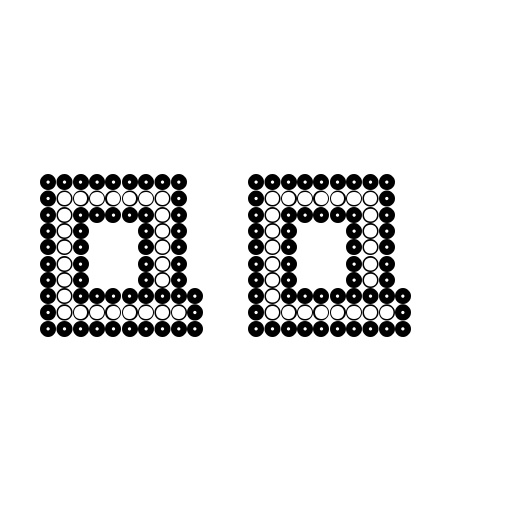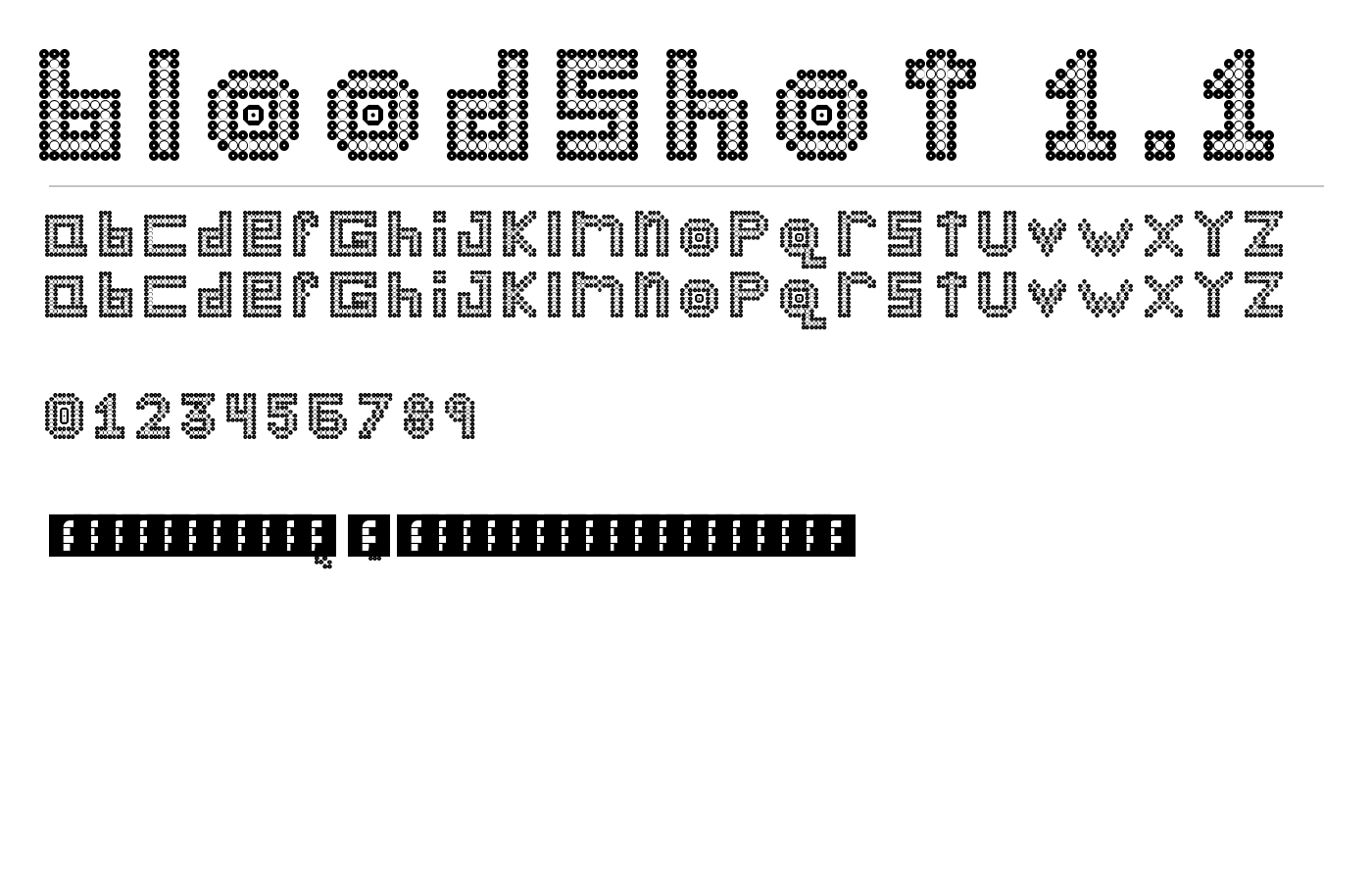
Bloodshot 1.1 is a playful and modern sans serif font composed of dotted patterns, giving it a digital or pixelated texture. Its consistent weight and geometric shapes create a techy, futuristic feel, making it ideal for creative designs, posters, and digital branding that seek a unique, eye-catching look. This font works best in large sizes for headlines or logos where its distinctive style can be fully appreciated.
Bloodshot 1.1 Font
About Bloodshot 1.1 Font